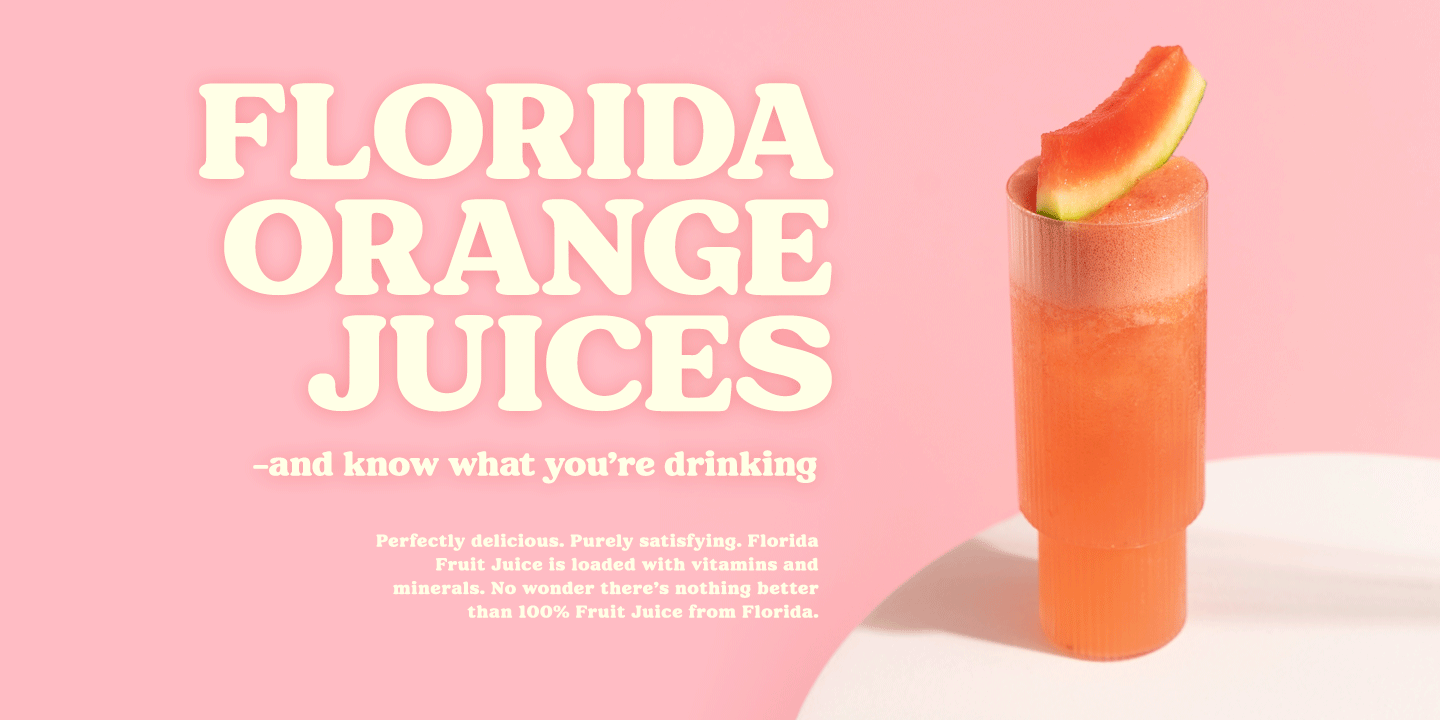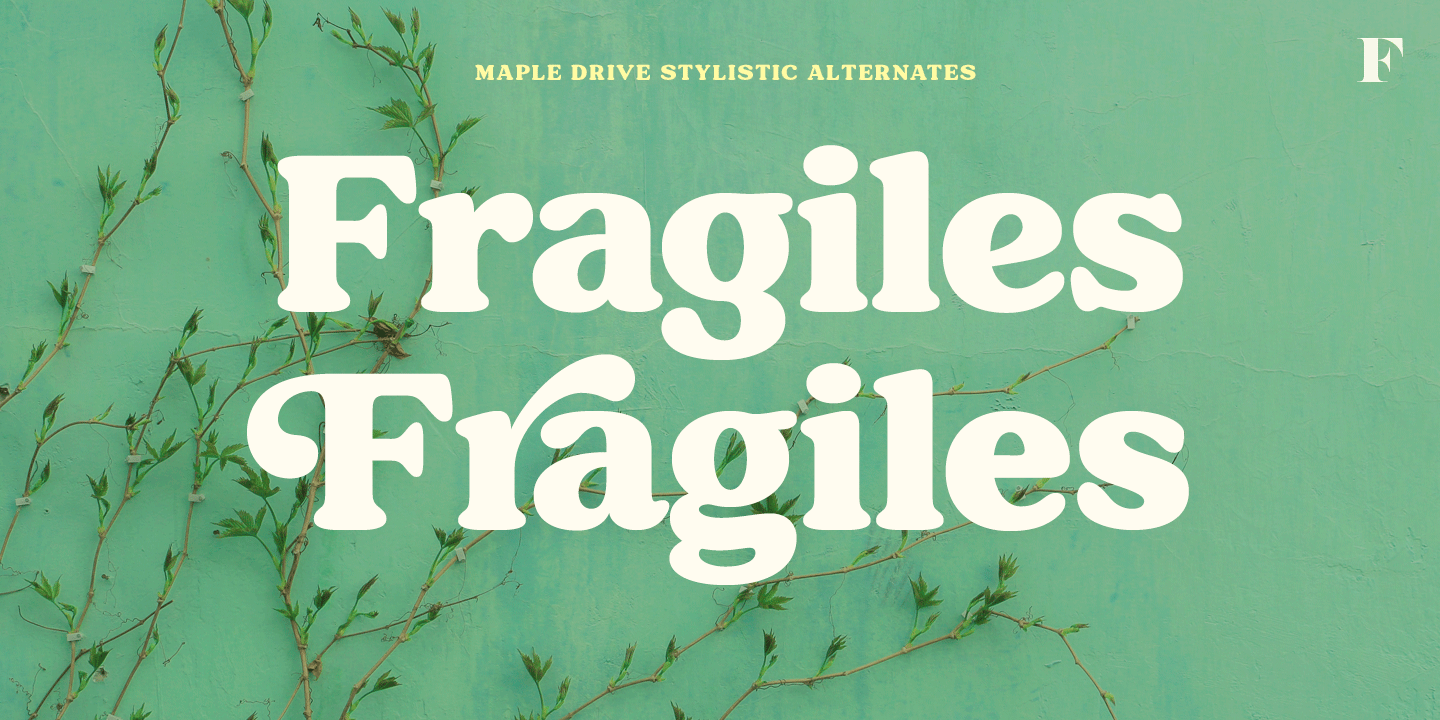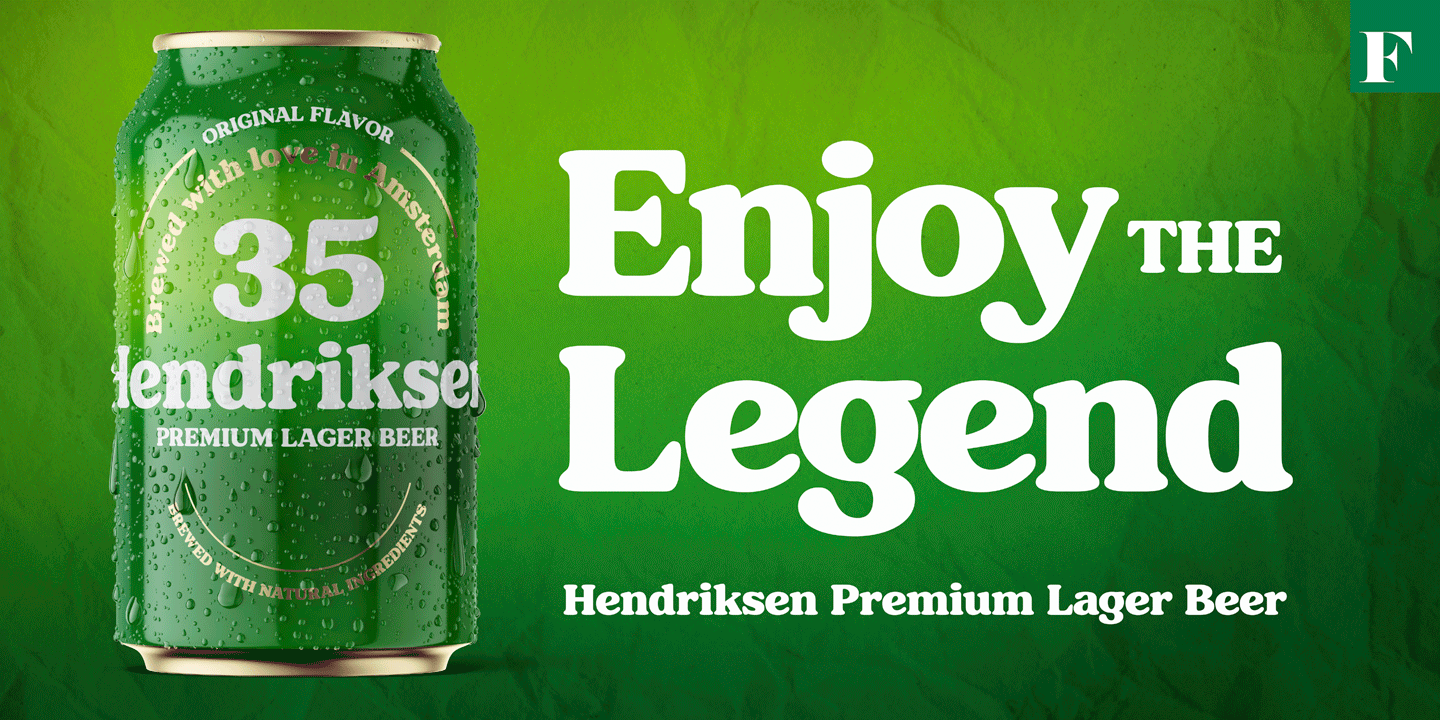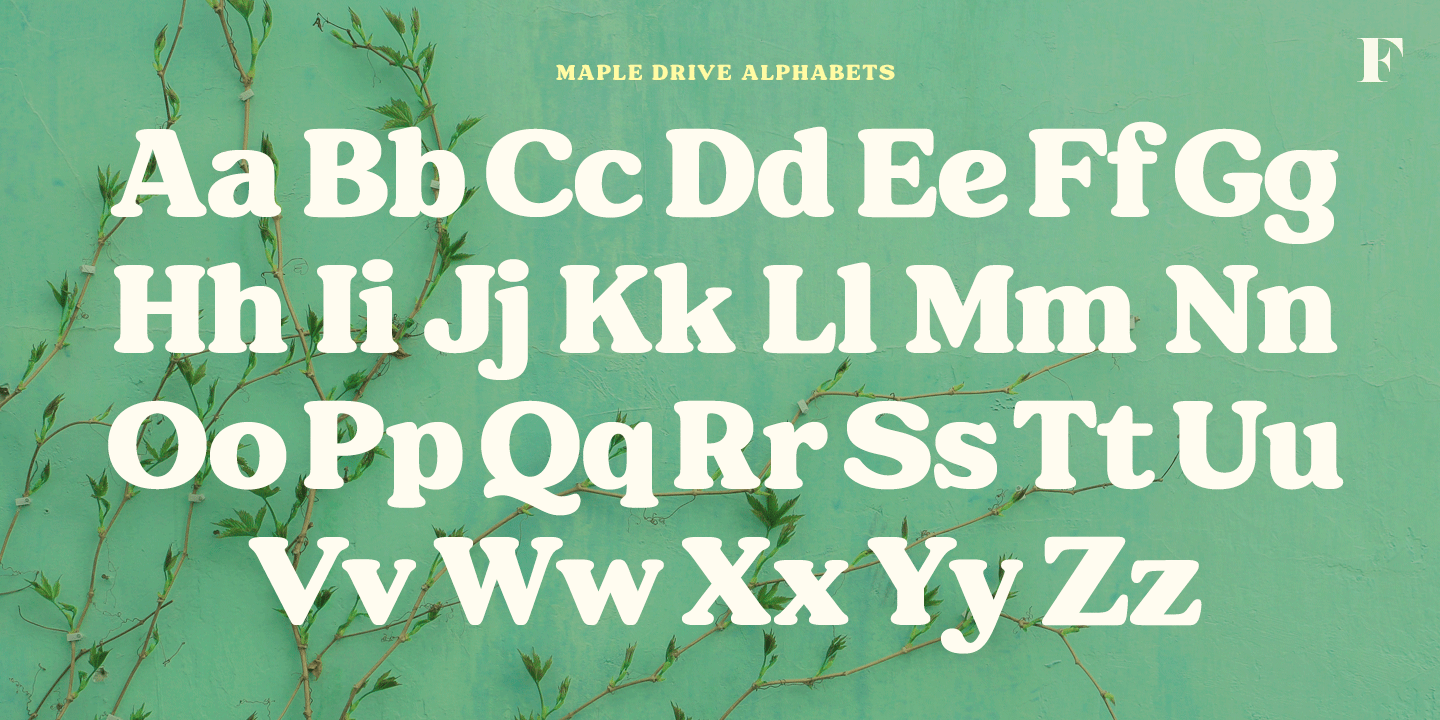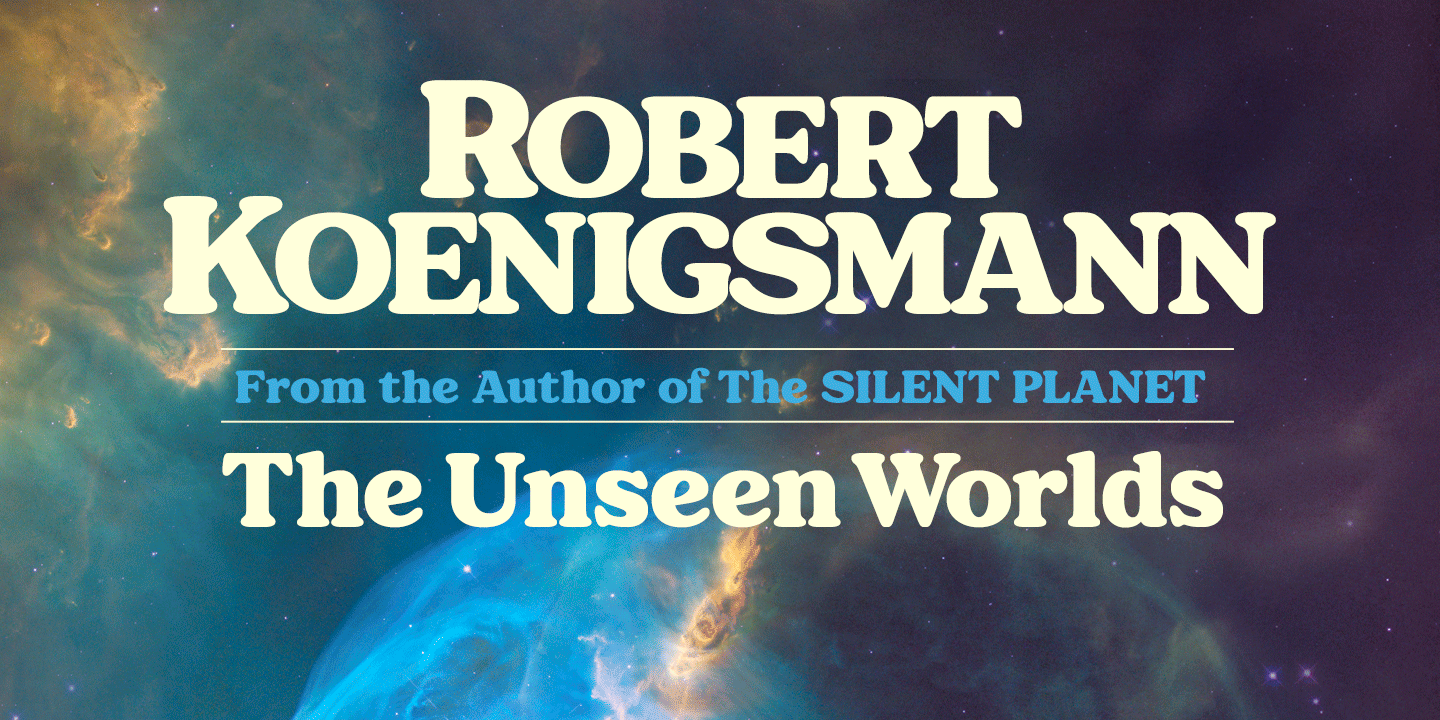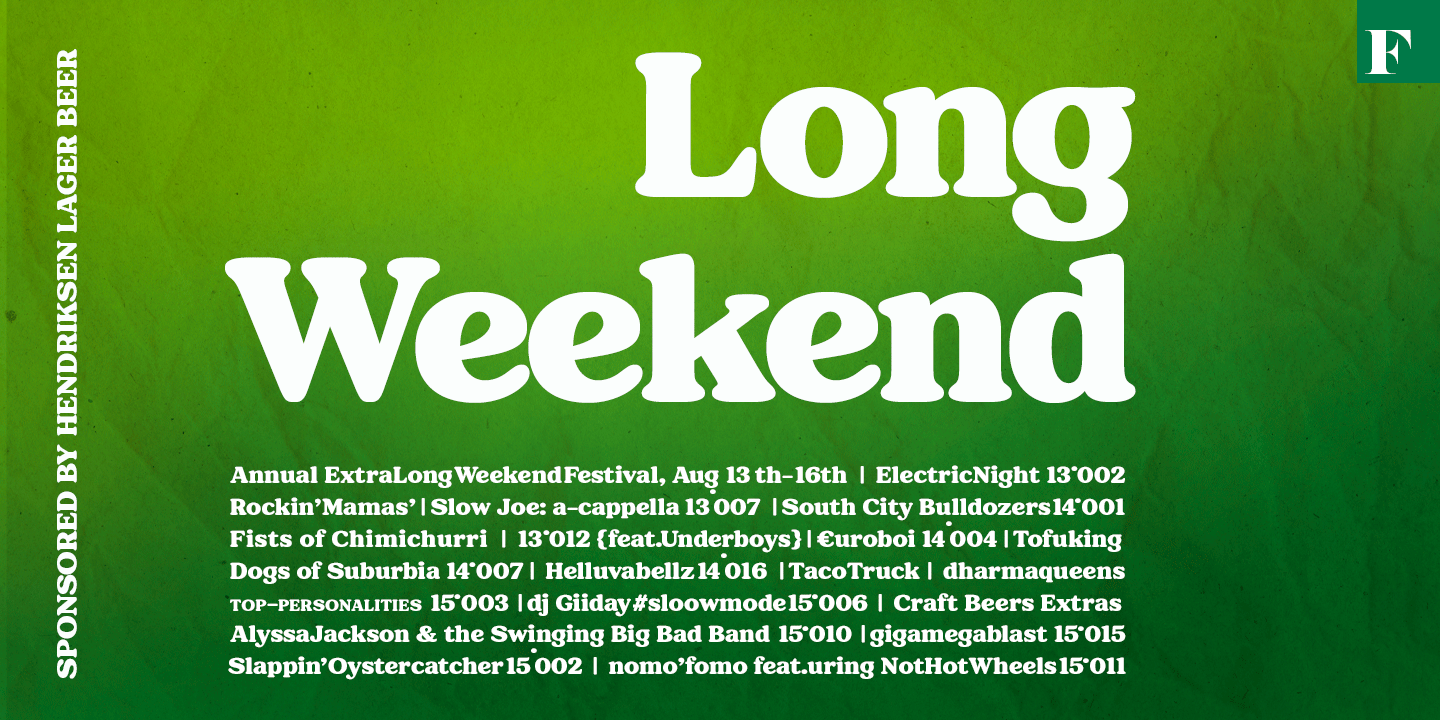
Maple Drive is a bold rounded serif typeface with a warm and familiar feel built-in. Maple Drive delivers a recognizable nostalgic feeling polished for modern day use. Maple Drive works great as a logotype, in magazines, headlines, posters, advertising…